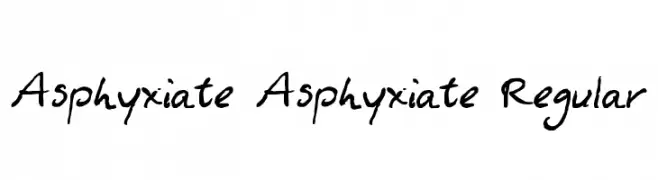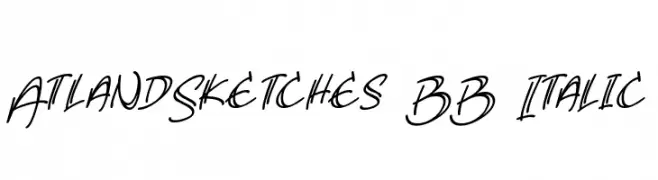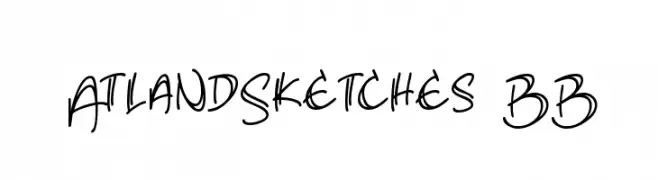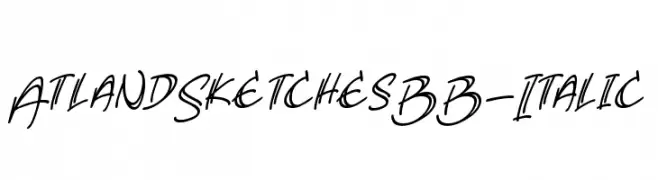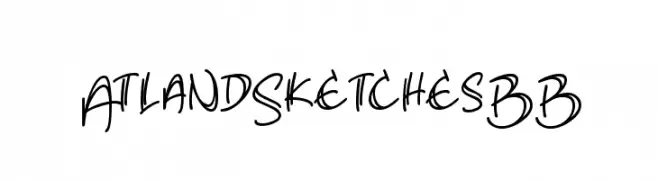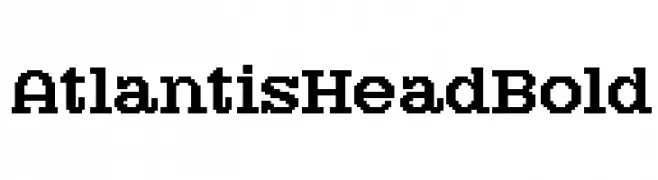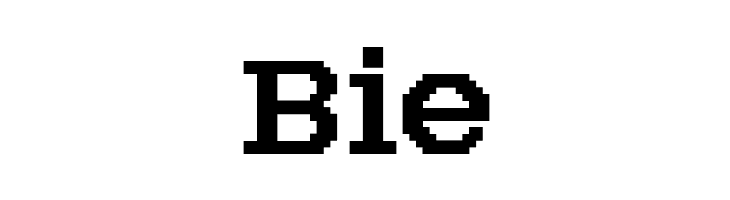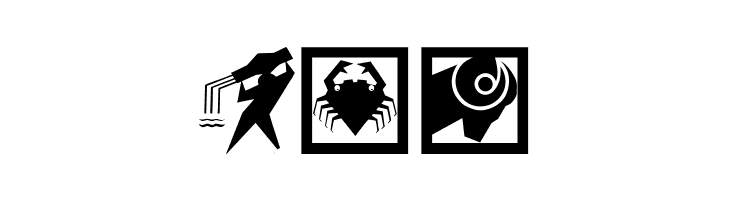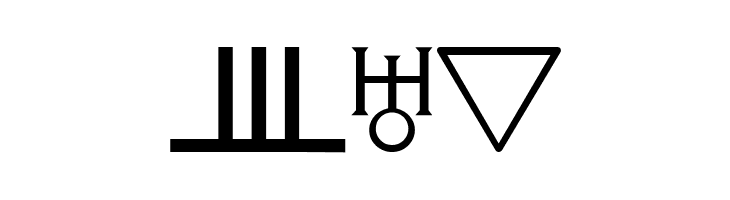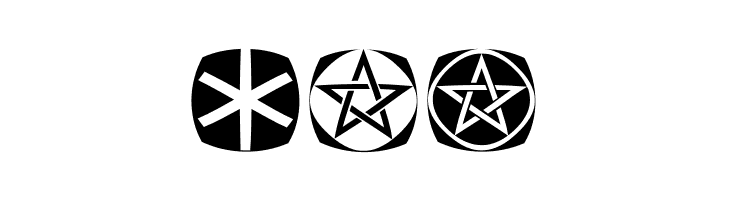
• ASIAN INFLUENCE
A bold, fluid script font with dramatic, calligraphic strokes.
• Asphyxiate Regular
A dynamic, handwritten-style font with expressive, uneven strokes.
• AstrobatsInvers
A bold, modern collection of abstract and geometric symbols with high contrast.
• AstrologyCelticSymbols
A decorative symbol font blending Celtic, astrological, and mythological imagery.
• AstroSymbolsThree
Decorative symbol font with zodiac and astrology-themed icons.
• AtlandSketches BB
A playful, sketch-like handwritten font with dynamic strokes and a casual feel.
• AtlandSketches BB Italic
A dynamic, cursive script font with an italicized, handwritten style.
• AtlandSketchesBB
A playful, hand-drawn font with a sketch-like, artistic style.
• AtlandSketchesBB-Italic
A dynamic, italicized handwritten font with a sketch-like appearance.
• AtlantisHeadBold
A bold, slab serif font with strong, block-like serifs and even spacing.